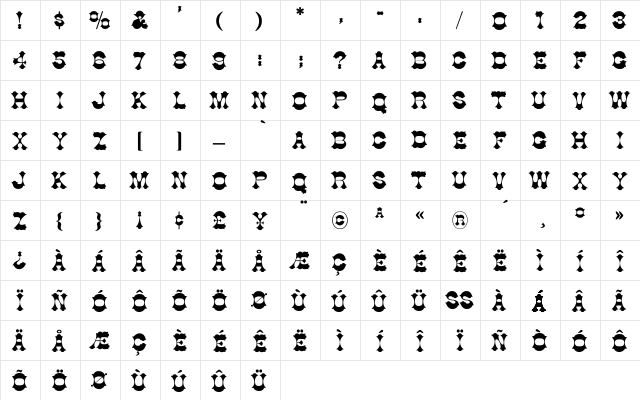
Cottonwood-Normal Regular
Design Context for Cottonwood-Normal Typeface
Cottonwood-Normal echoes the hand-painted signage and woodblock typography of the American frontier, with a warm, rugged personality.
A natural fit for craft spirits, ranch branding, rodeo events, and Americana-inspired design work.
Font Pairing: Combine Cottonwood-Normal with a simple slab or neutral sans — period-accurate companions reinforce the vintage feel without competing for attention.
Pro Tip: Use Cottonwood-Normal for short, impactful bursts of text — it shines in poster headlines and product names rather than extended copy.